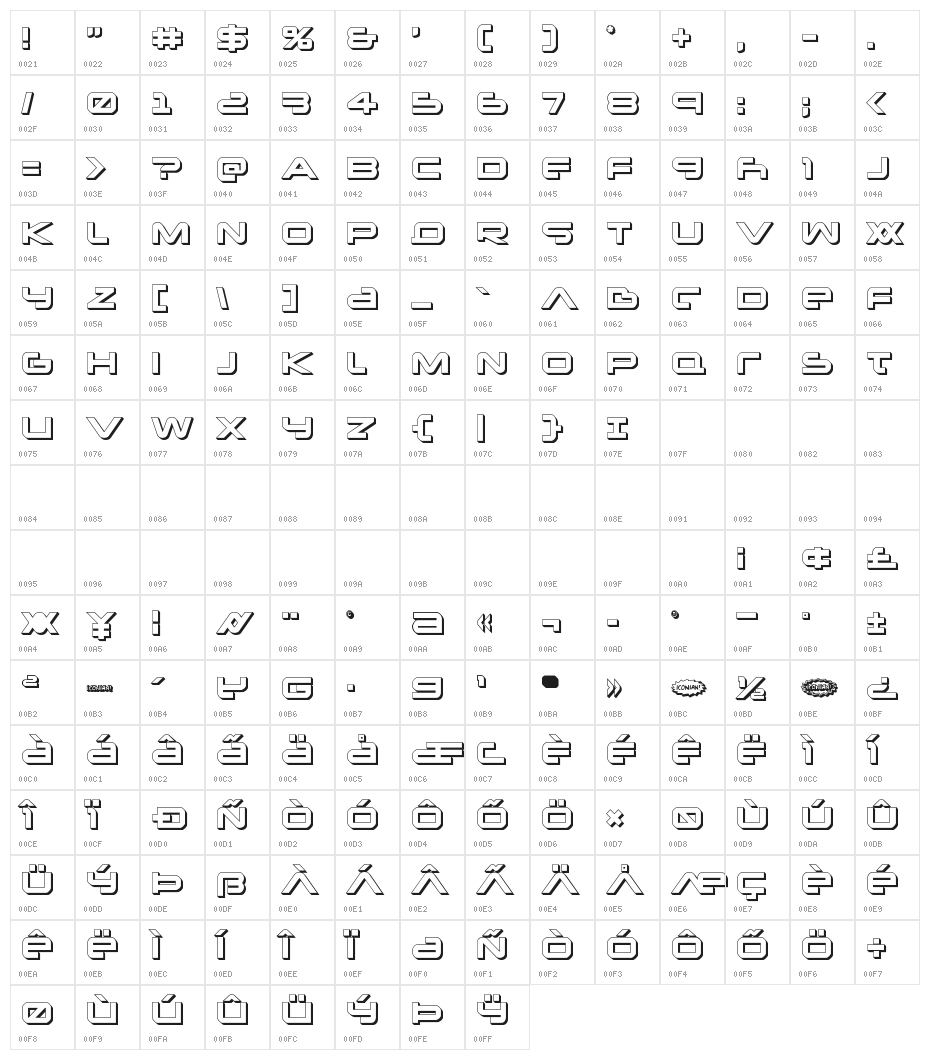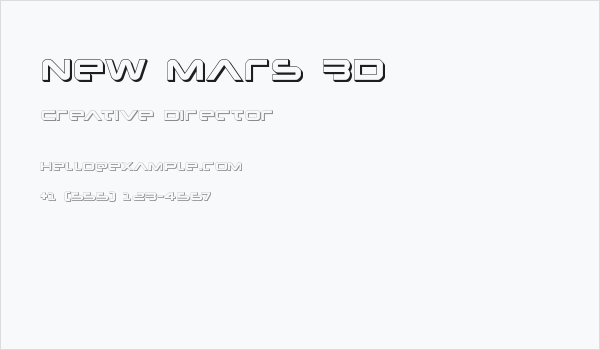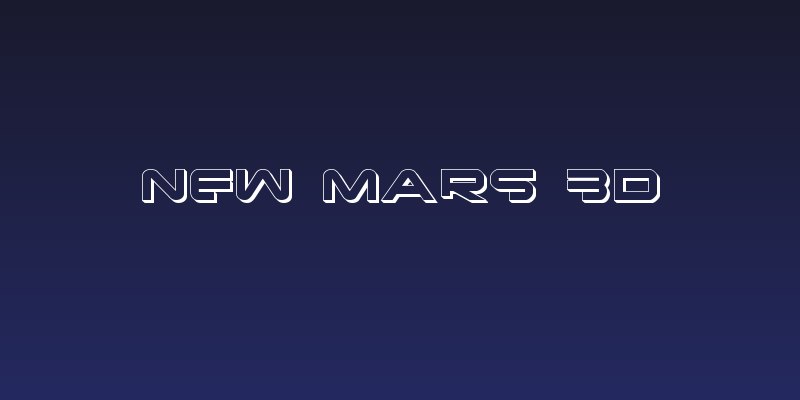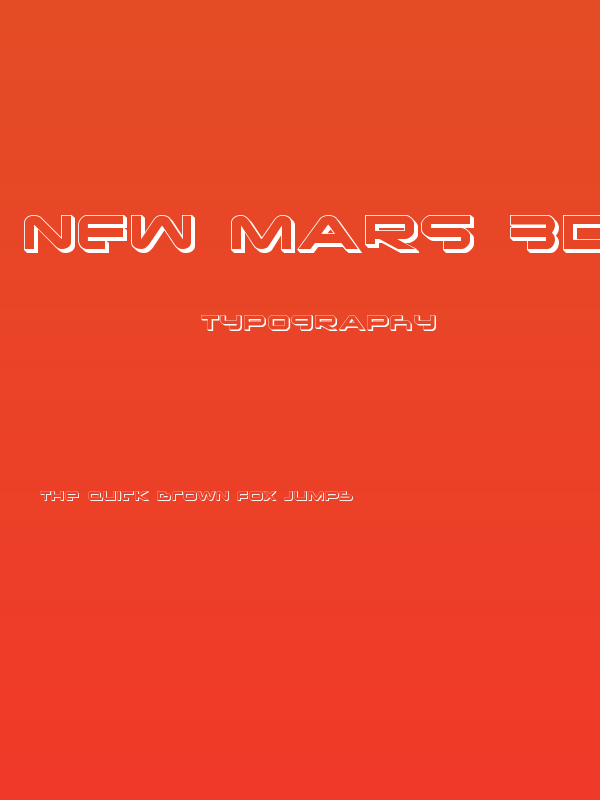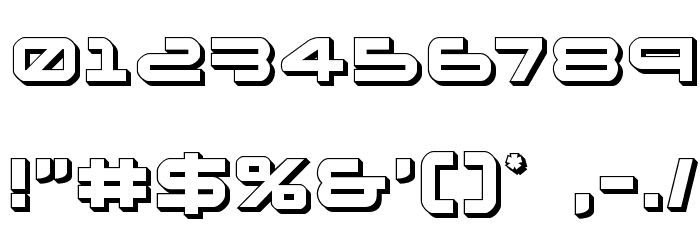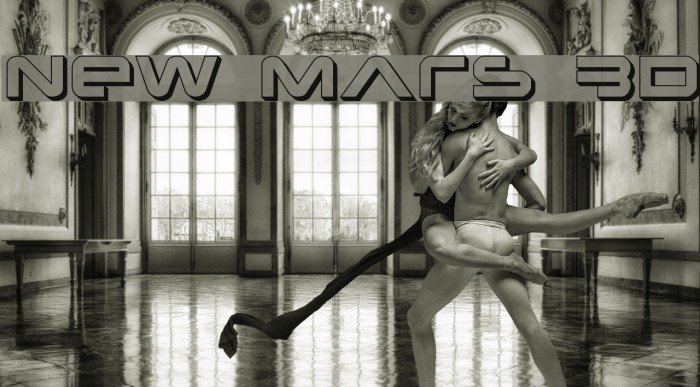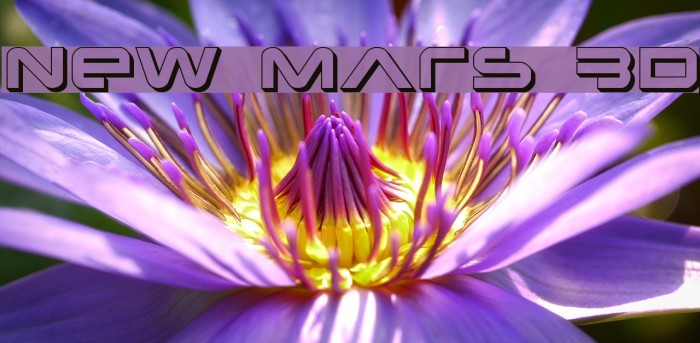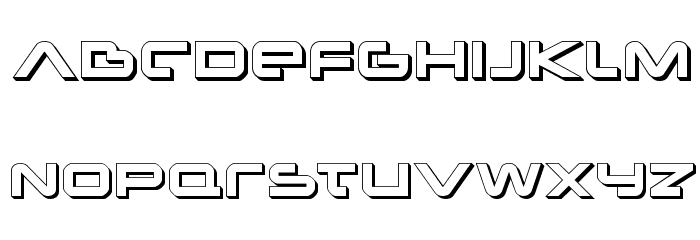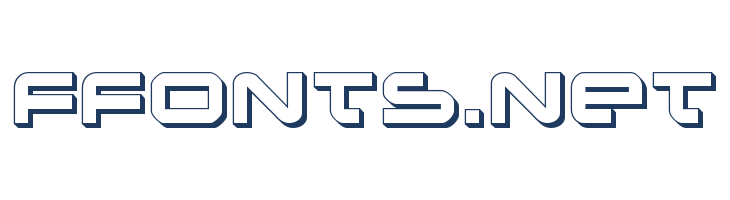
New Mars 3D Font
New Mars 3D Description
This font features a futuristic and geometric design, characterized by bold, angular lines and a three-dimensional effect. The uppercase letters are distinct with sharp edges and a blocky appearance, while the lowercase letters maintain a consistent style, offering a cohesive look. The numerals and special characters follow the same design principles, ensuring uniformity across all glyphs. The font's unique style makes it ideal for projects that require a modern and tech-inspired aesthetic.
| Proposed Projects | Ideal for sci-fi themed designs, technology branding, video game titles, and futuristic posters. |